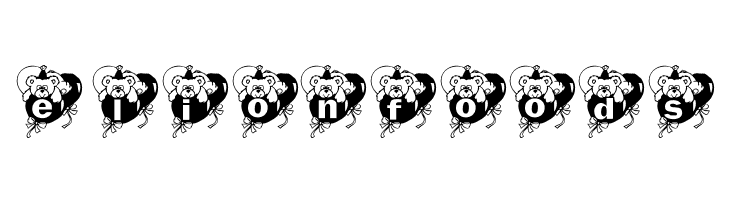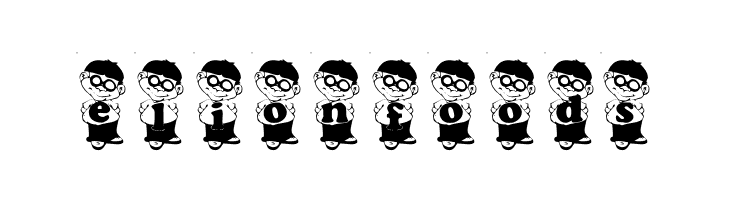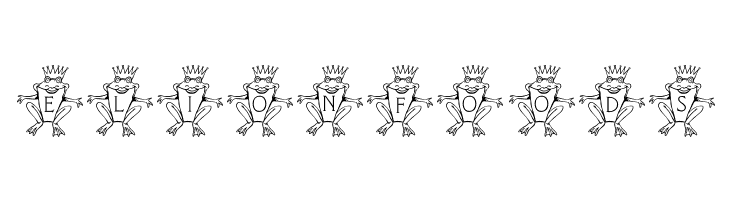
A decorative font with angel illustrations for each character, perfect for festive designs.
A festive, decorative font featuring Santa and reindeer illustrations with each character.
A decorative, cherub-themed font with heart-shaped characters.
A playful, bear-themed decorative font perfect for children's projects.
Whimsical cartoon tin man illustrations for each character.
A playful font with bear illustrations, perfect for children's projects.
A playful, cartoon-style font with letters held by whimsical characters.
A playful font with letters in heart shapes held by cartoon mice.
A whimsical, frog-themed decorative font perfect for playful designs.
A decorative font with characters inside heart shapes topped by cupids.